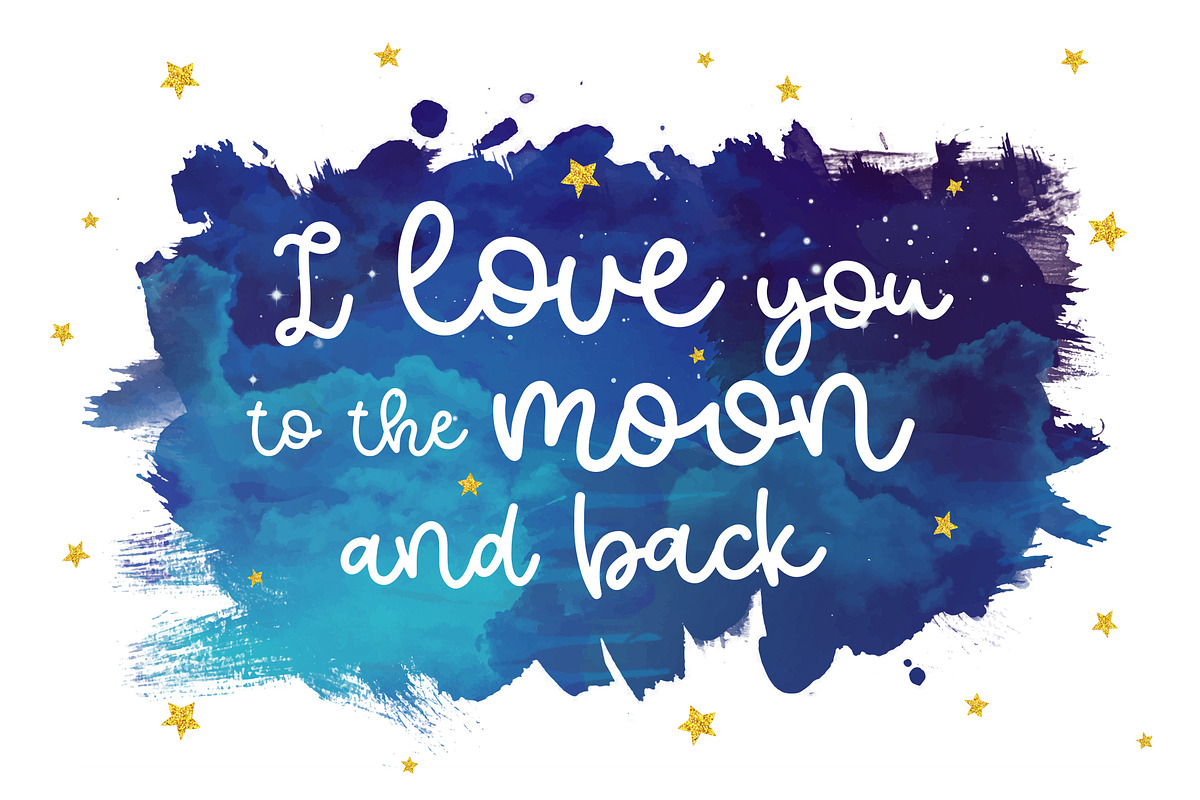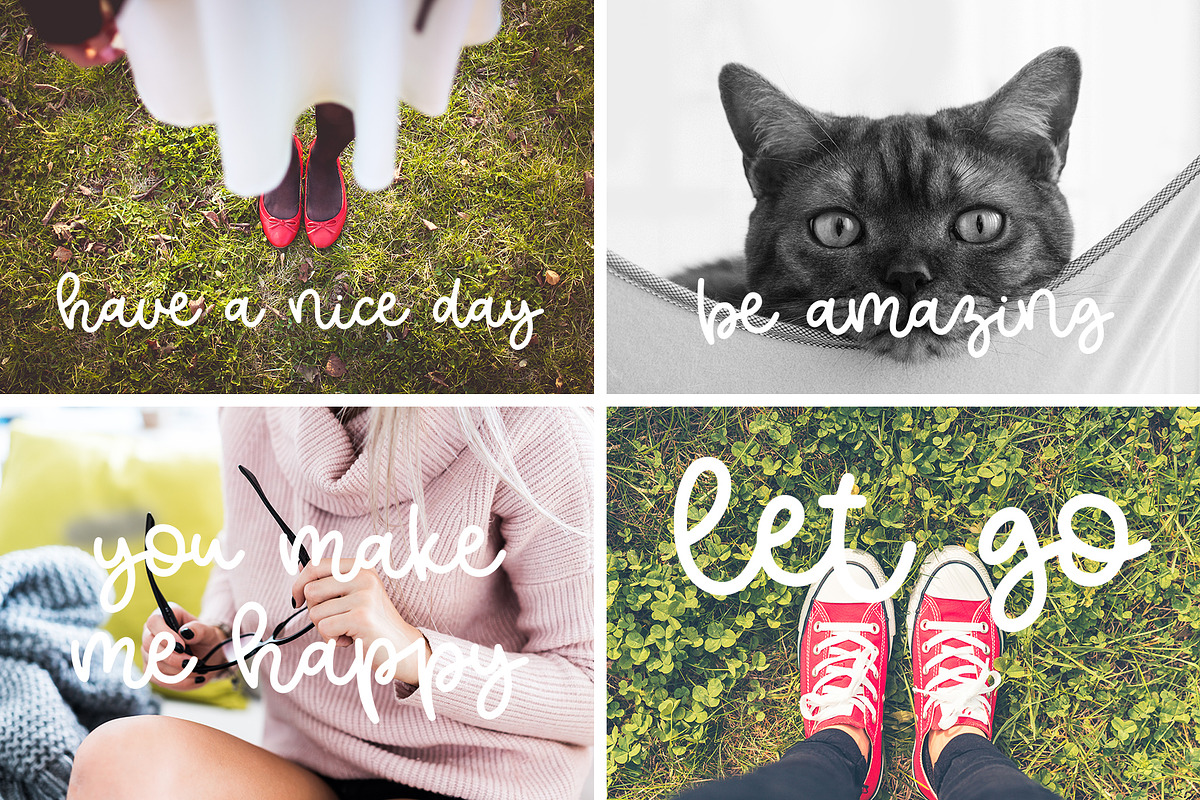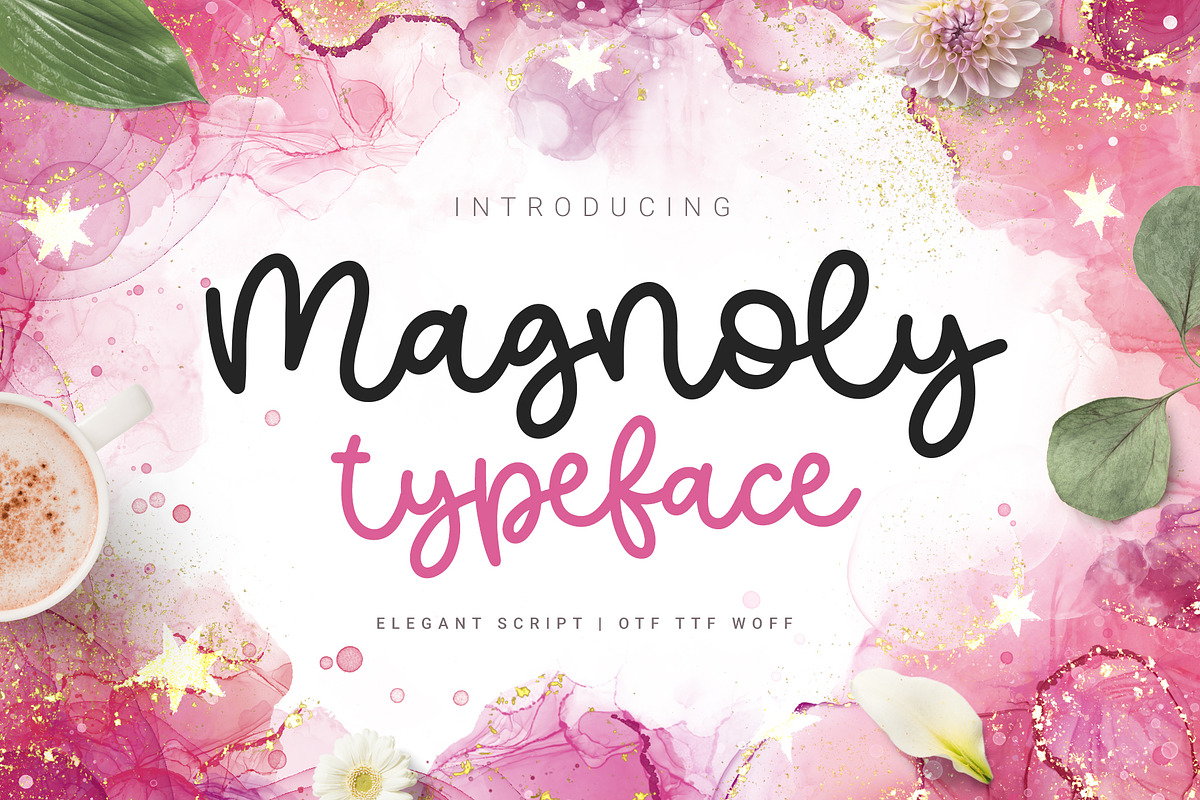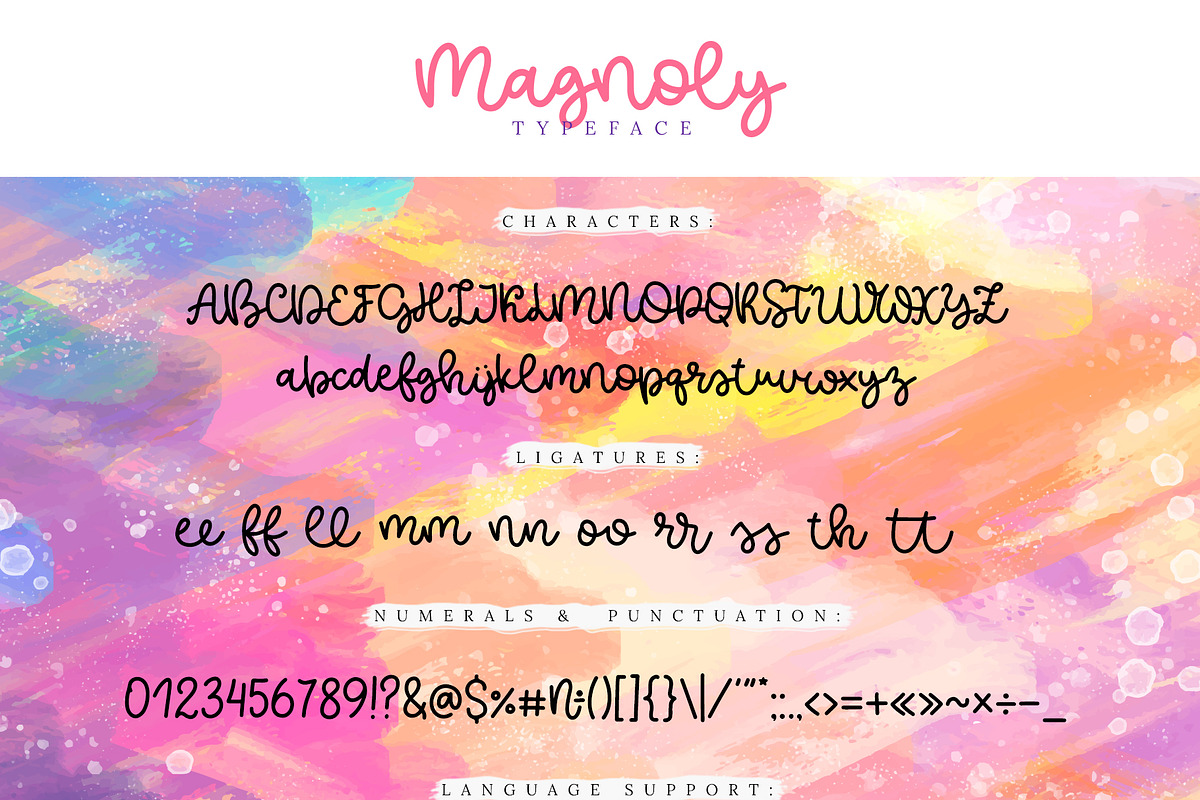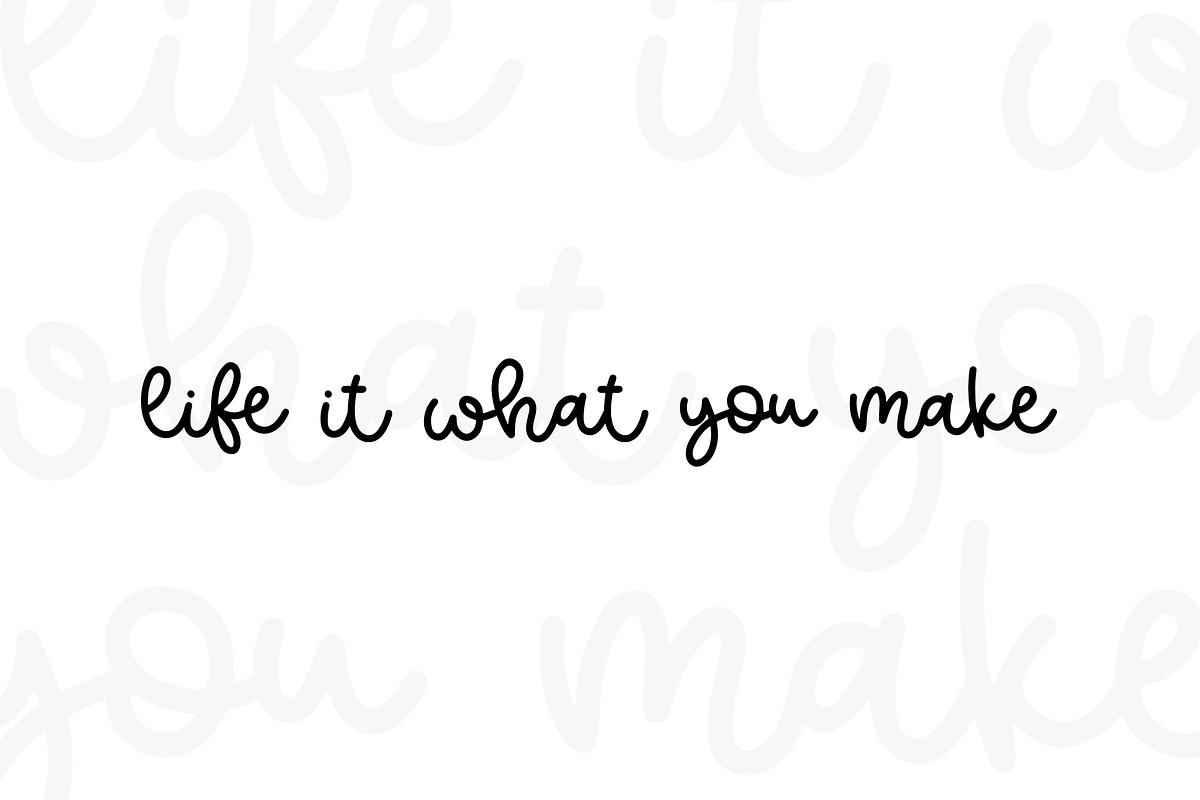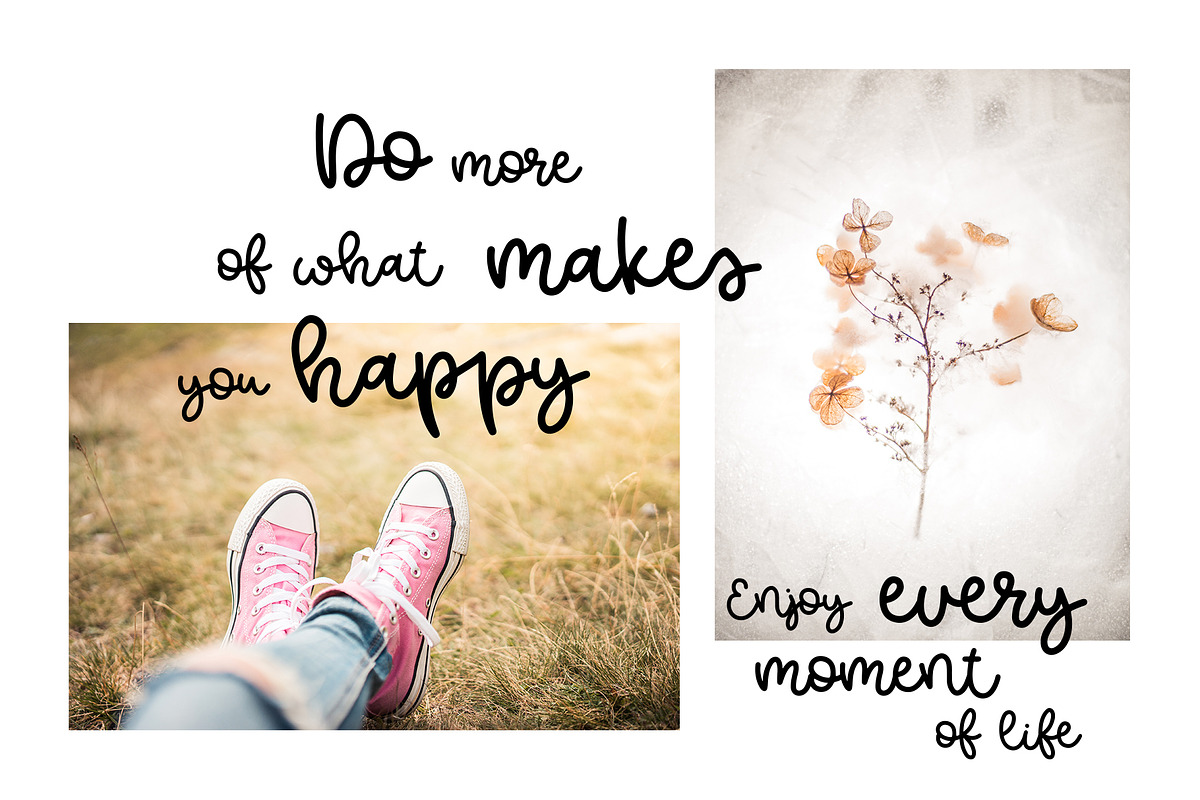
Magnoly Handwritten Font
♥ Magnoly Handwritten Font - elegant script for your projects! ♥
This hand drawn font is perfect for cards, prints, logos, wedding invitations, arrange illustration and decoration.
It has upper and lower case letters, numbers, special characters, accents and ligatures.